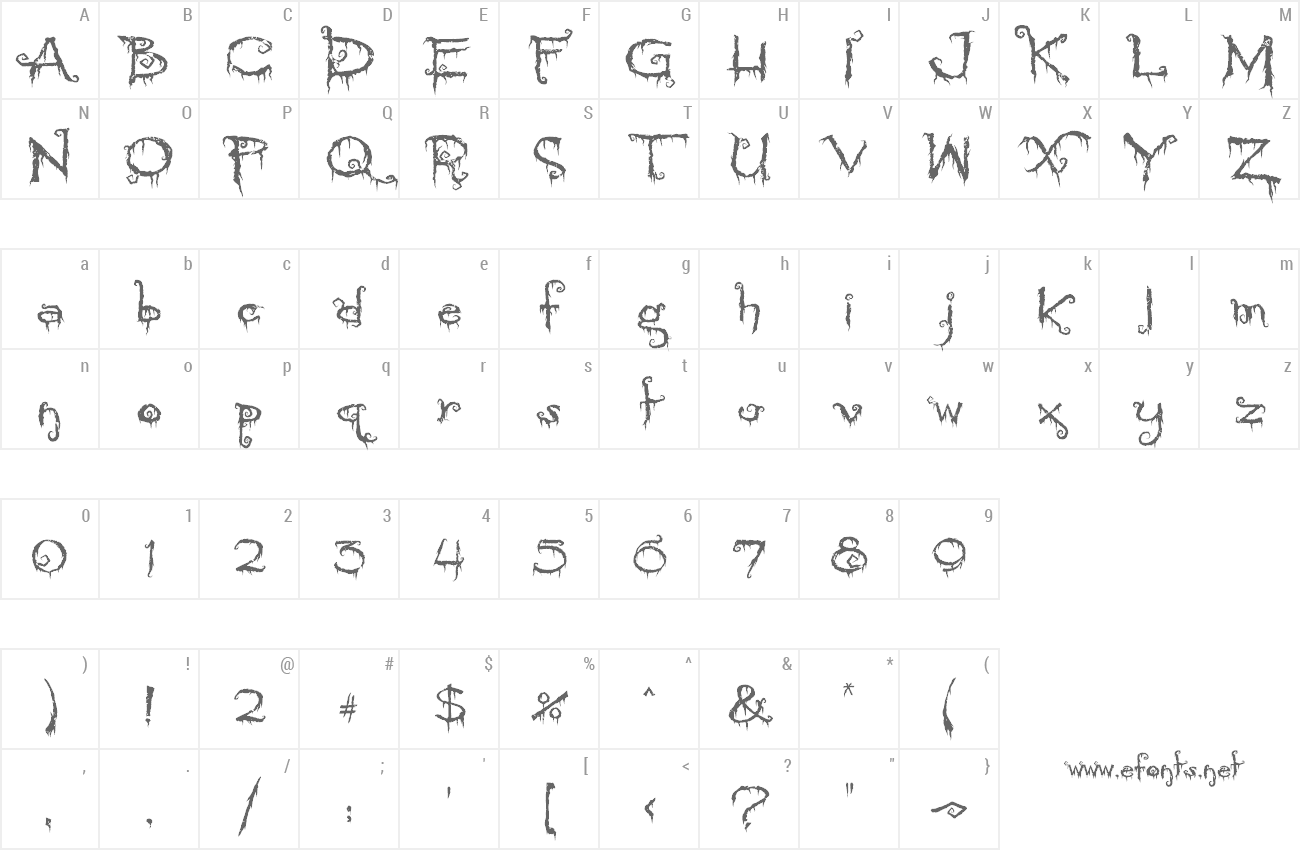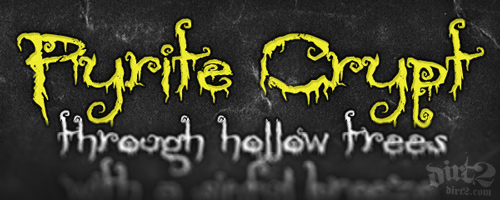
Preview and download Pyrite Crypt Font. Created by Dirt2.com - SickCapital in Fancy Horror styles with Free for personal use license.
A spooky themed font with spirals and droopy drip drops. You can download the clean version named "Pyrite Scrypt". Visit my shop at sickcapital.com to use the font on commercial products and sales: http://sickcapital.com/scripts/prodView.asp?idProduct=64 Enjoy! |